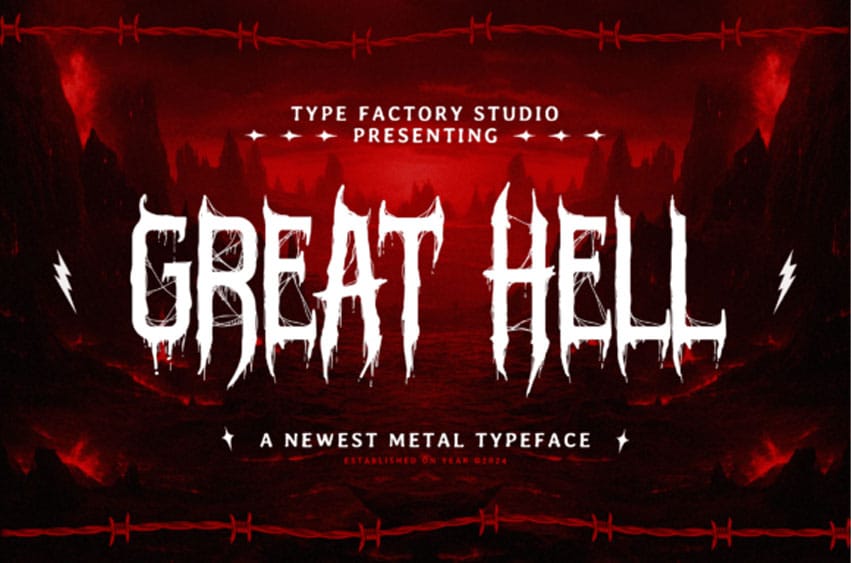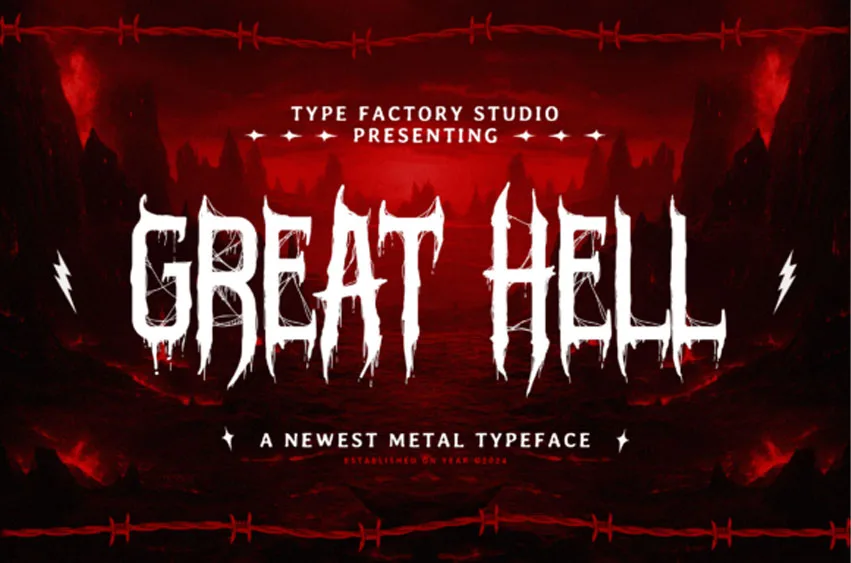
Great Hell Font is a dark metal display typeface inspired by extreme music aesthetics and horror visual culture. The letterforms feature sharp edges, dripping shapes, and chaotic textures that create a raw and aggressive visual character.
This typeface is designed to capture the atmosphere of metal music artwork and underground graphic styles. Its dramatic and expressive form makes it suitable for band logos, album covers, concert posters, and dark-themed visual projects.
Great Hell works perfectly for heavy metal branding, horror titles, music festival graphics, and bold display typography that requires an intense and powerful visual presence.